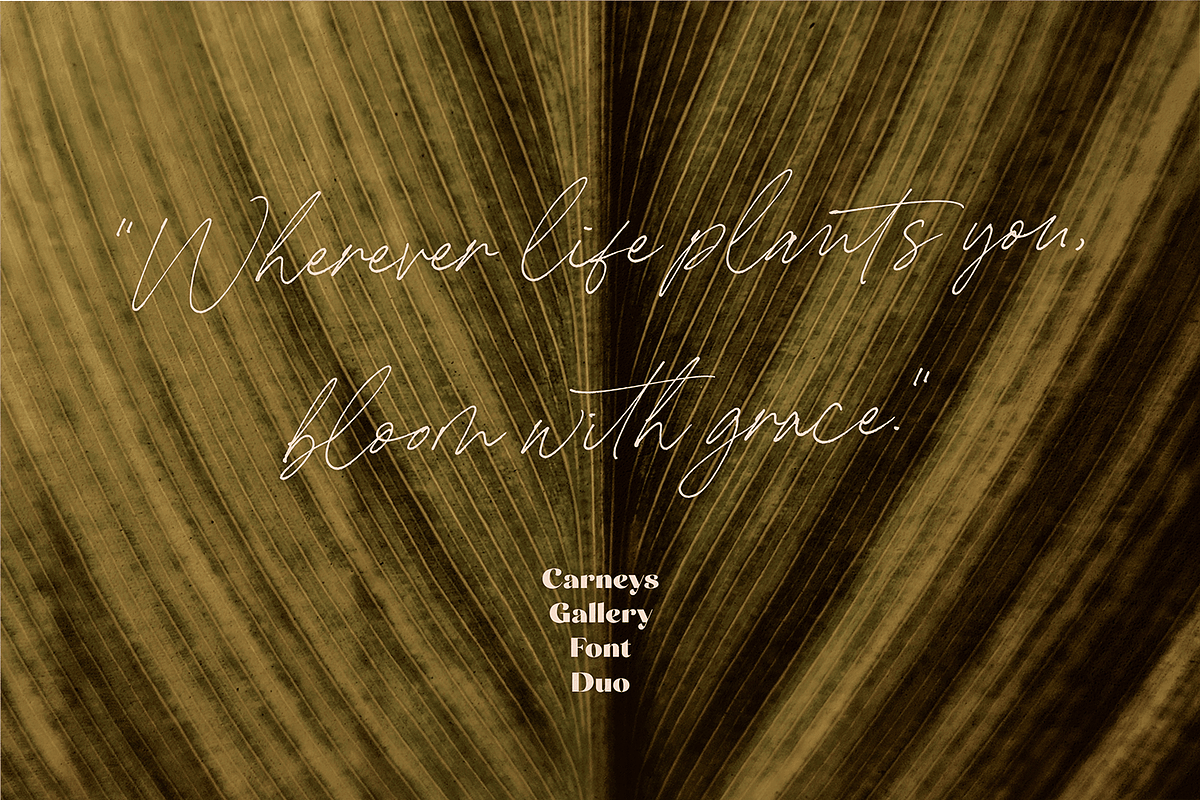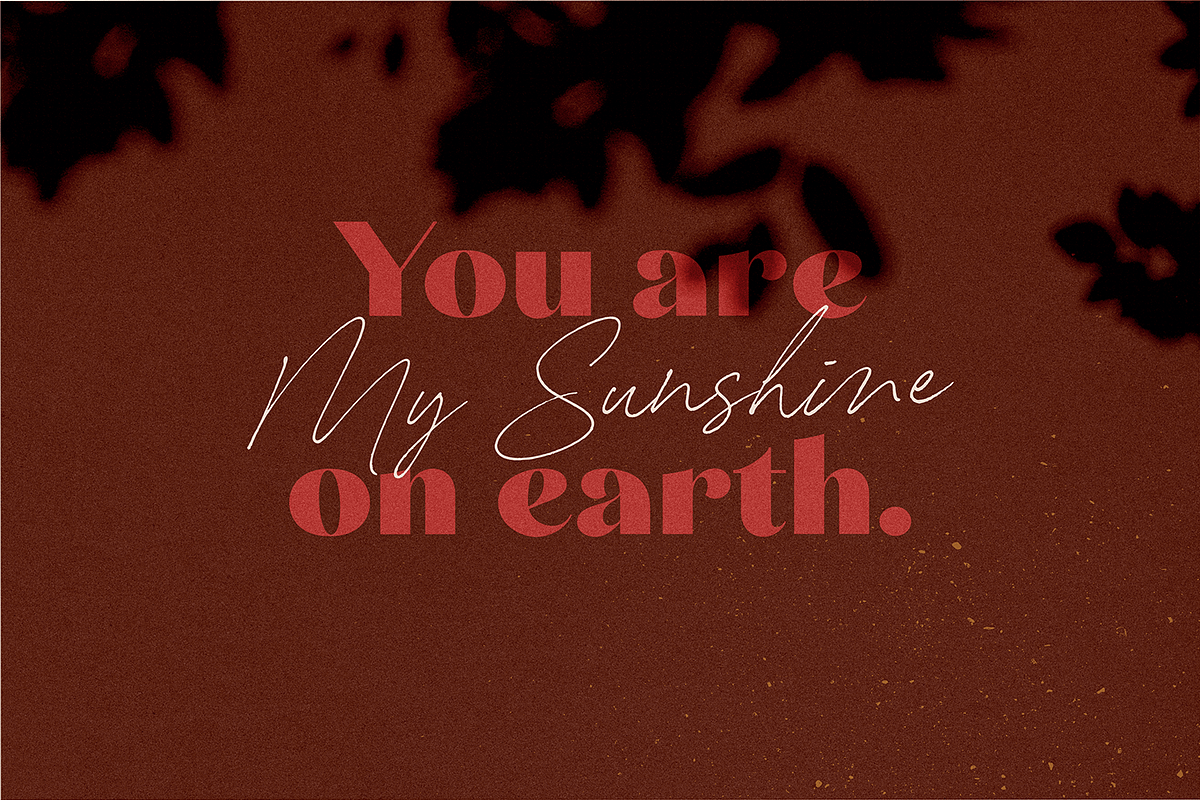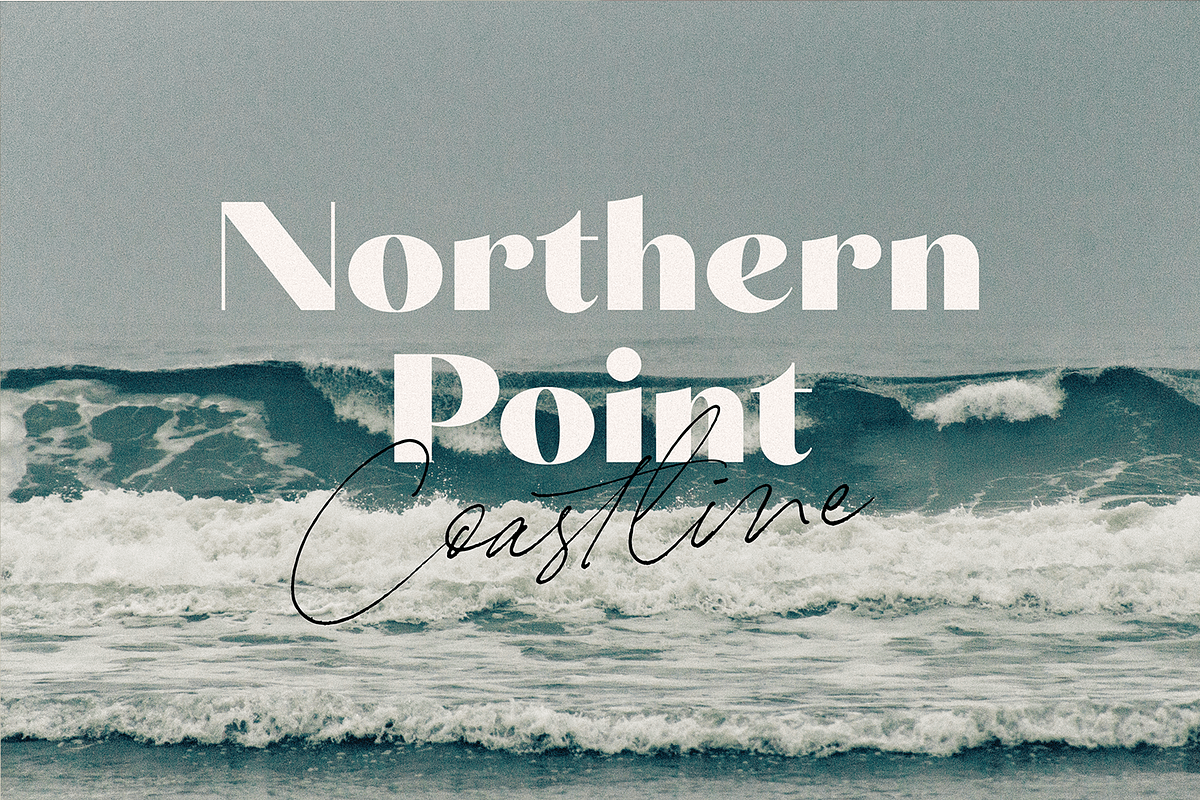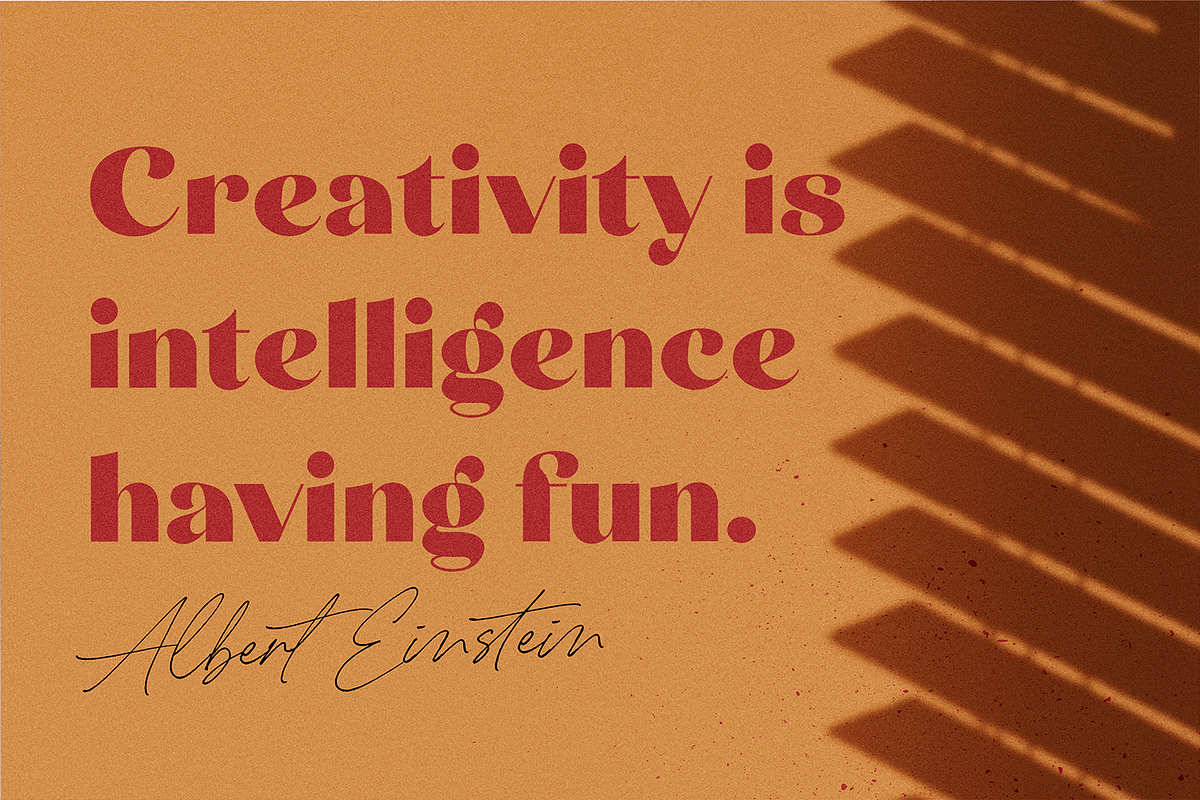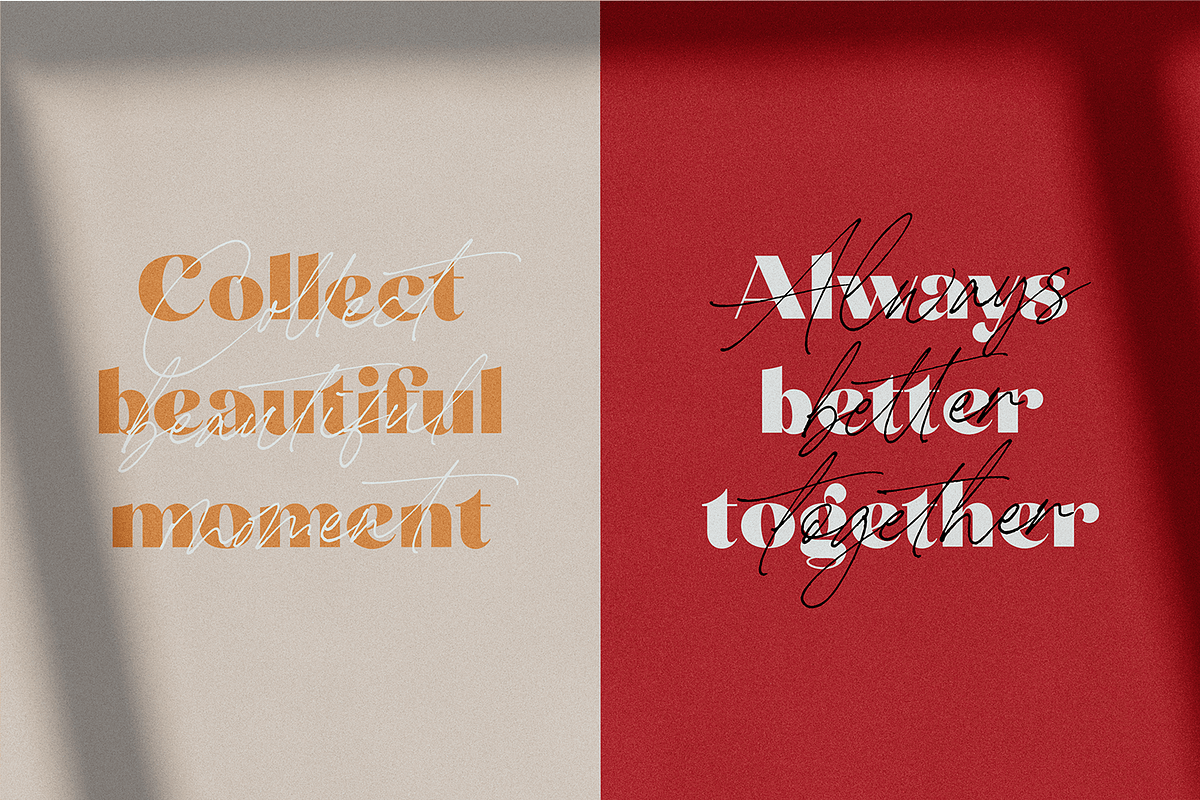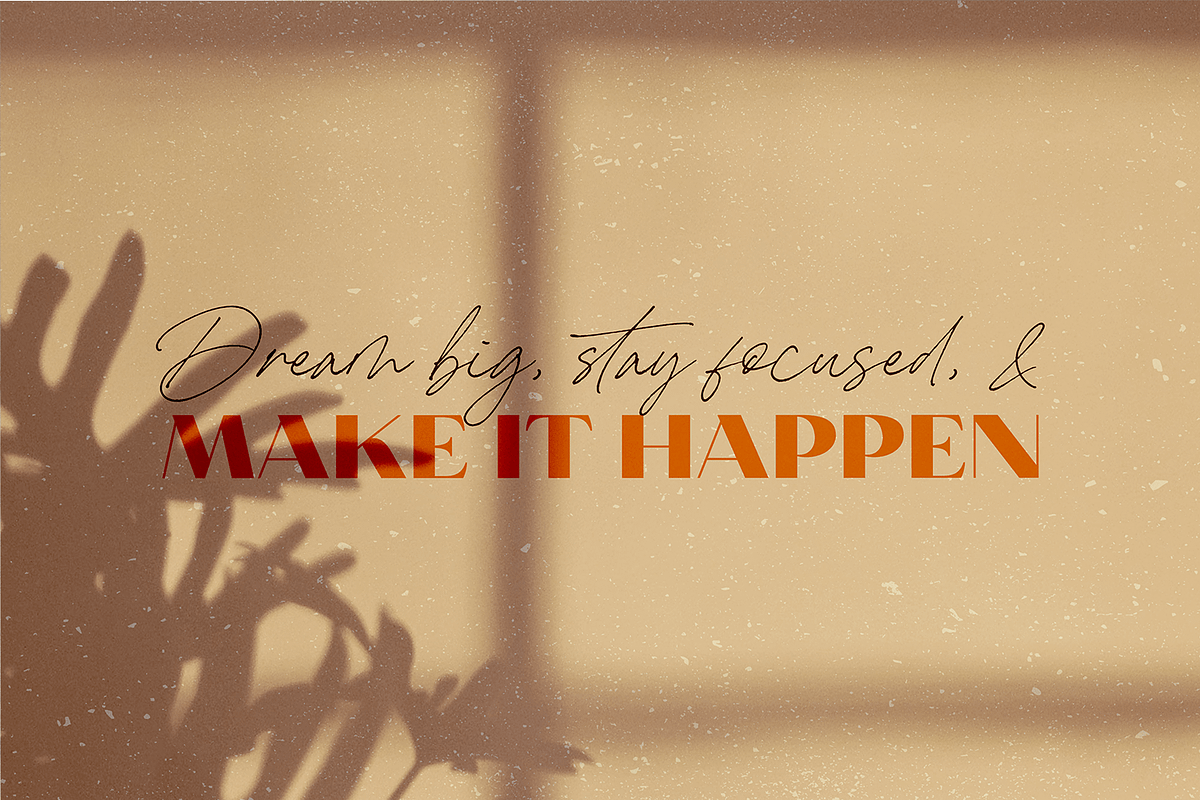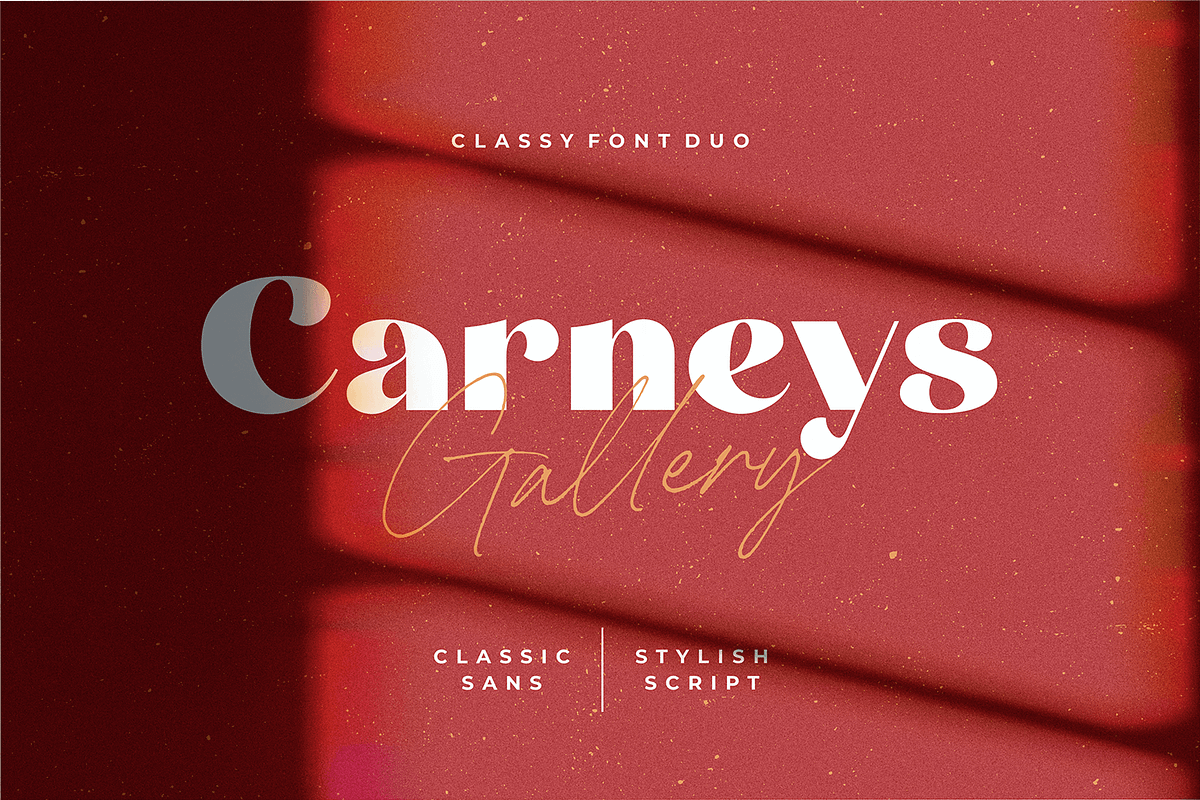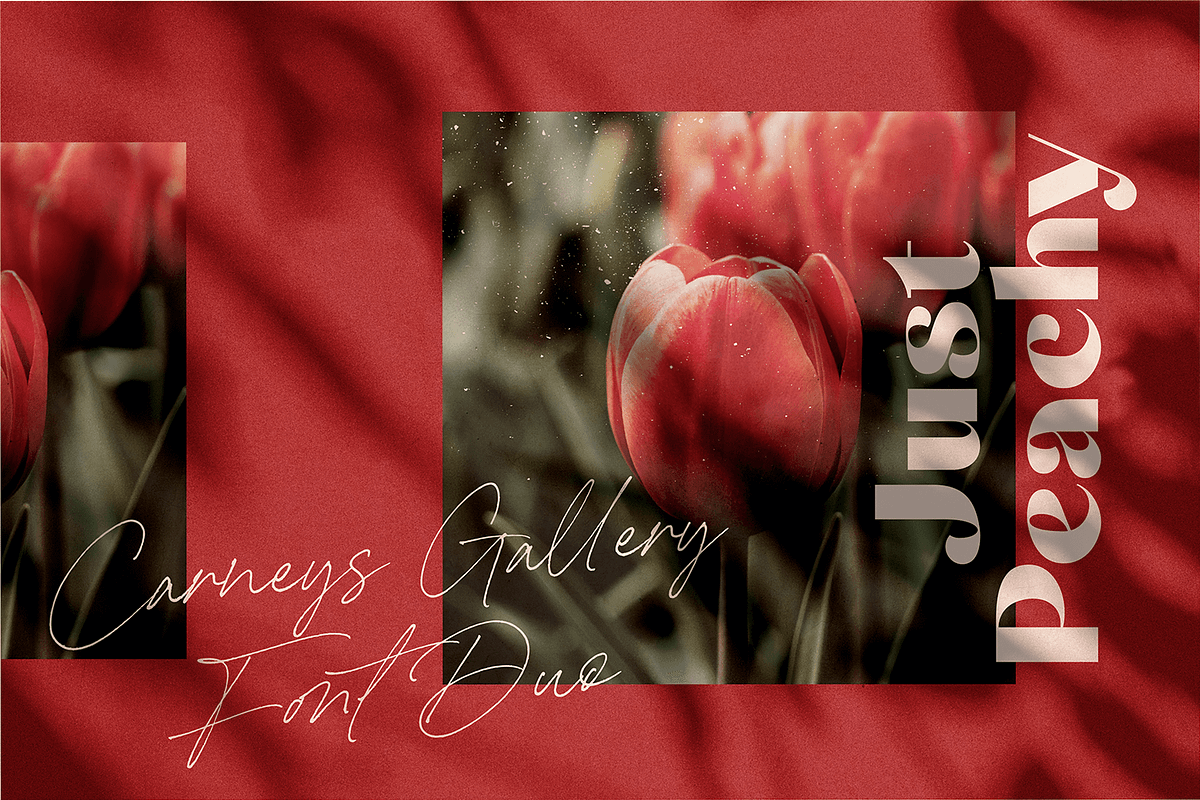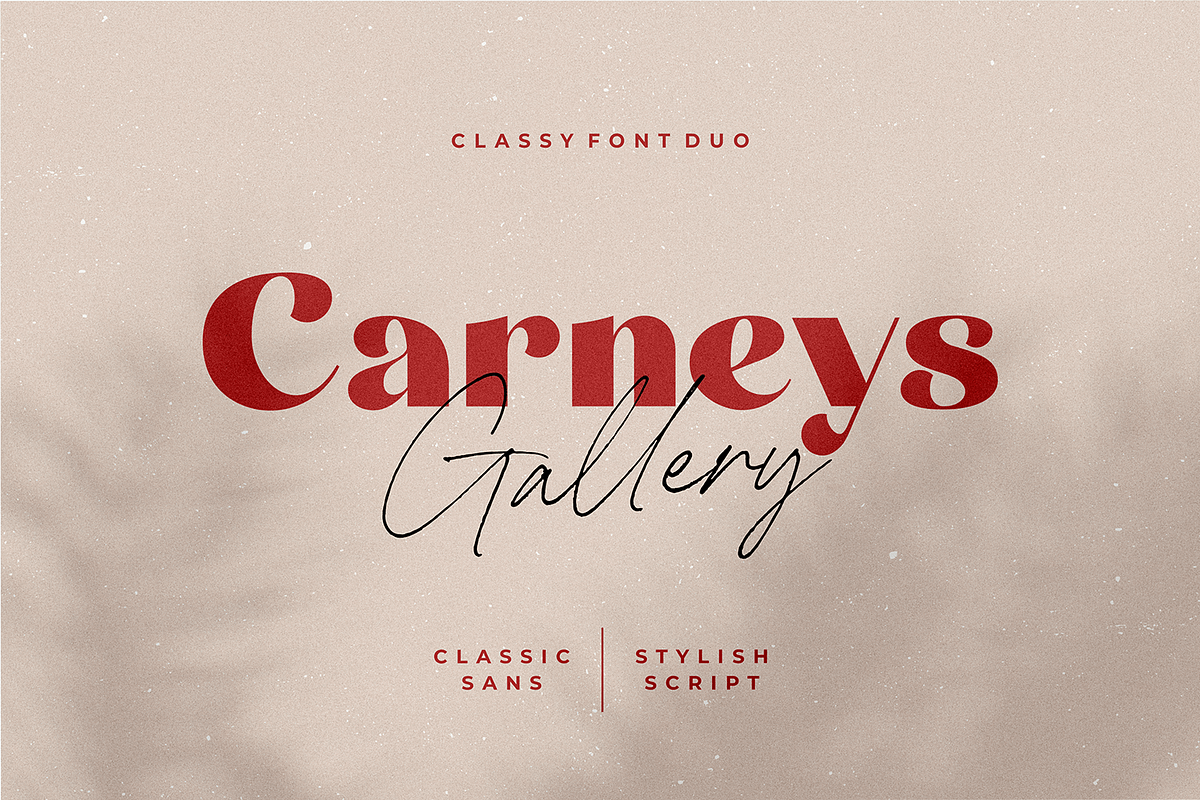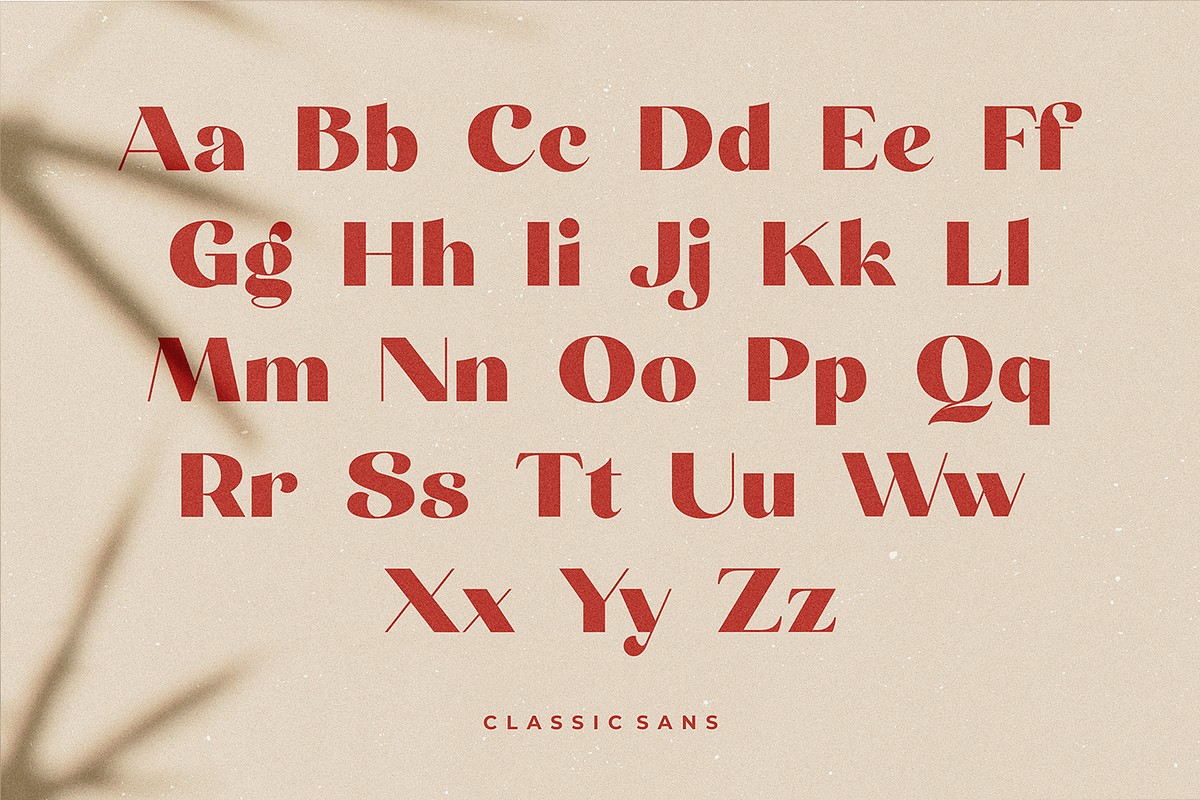
Carneys Gallery Font Duo
Introducing! Carneys Gallery Font Duo! a classy, perfect pairs of classic sans and script fonts. Carneys Gallery Font Duo is a handmade and carefully crafted font that will offer balance and beauty in your designs.
Carneys Gallery includes 2 fonts :
Carneys Gallery : Sans serif font including Uppercase, Lowercase, Number, Punctuation, and multilingual support.
Carneys Gallery Script: Uppercase, Lowercase, Number, Punctuation, multilingual support, and a tons of ligatures that will enhance the natural impression.